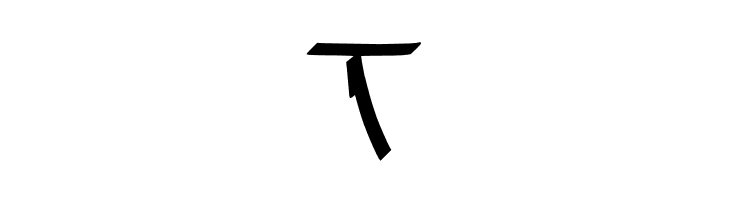
A bold, rounded font with a playful and casual style.
A bold, playful font with rounded edges and a casual, friendly style.
A bold, music-themed decorative font with integrated musical elements.
A bold, music-themed decorative font with integrated musical icons.
An ornate, floral-themed decorative font with intricate details.
An ornate and decorative font with intricate tendril patterns on each letter.
A whimsical, tentacle-inspired decorative font with intricate details and playful movement.
A bold, decorative font with star patterns and thick outlines.
Bold, blocky font with characters enclosed in black squares.
A bilingual font combining bold Latin letters with elegant Thai script.
A bold, playful handwritten font with rounded strokes and a casual style.
A modern, sleek font with elongated, consistent strokes and unique character twists.
A modern, sleek font with elongated, geometric letterforms and unique curves.
A graffiti-inspired font with bold, irregular characters and a rebellious, urban style.
A bold, energetic script font with dynamic and flowing letterforms.
A bold, distressed font with a vintage, rugged appearance.
A modern, geometric sans-serif font with high contrast and balanced spacing.
A bold, modern sans-serif font with geometric lines and subtle unique elements.